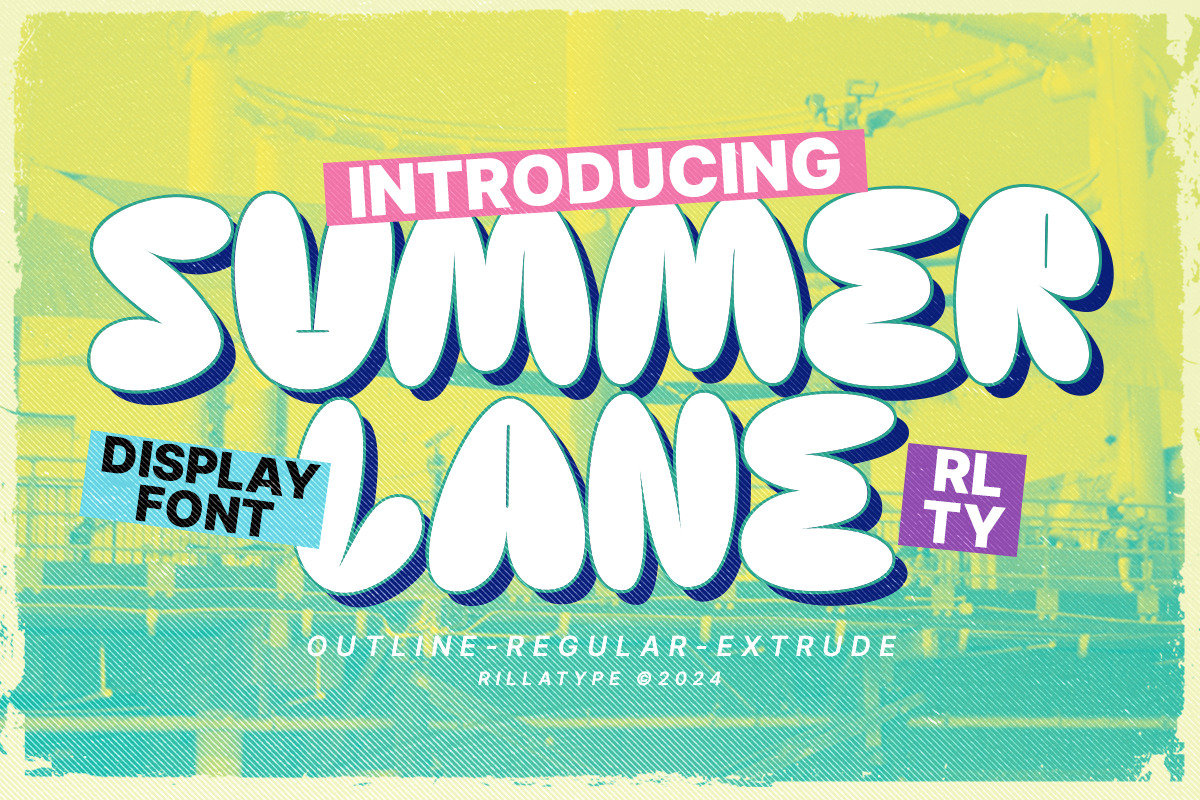
Summerlane Display Font
Introducing "Summerlane," a captivating bubble retro display font that transports you to the carefree vibes of summer. This font is a playful blend of nostalgia and modernity, reminiscent of vintage signage with a contemporary twist.
Each character in Summerlane is carefully crafted to evoke the essence of retro summers, where the air is filled with joy and the sunsets are endless. The bubbly, rounded design adds a touch of friendliness to your creative projects, making it perfect for posters, logos, and any design that craves a bit of retro flair.
With its versatility, Summerlane offers a delightful journey into the past while staying relevant for your present-day designs. Elevate your projects with the whimsical charm of SummerLane and let the good vibes flow.